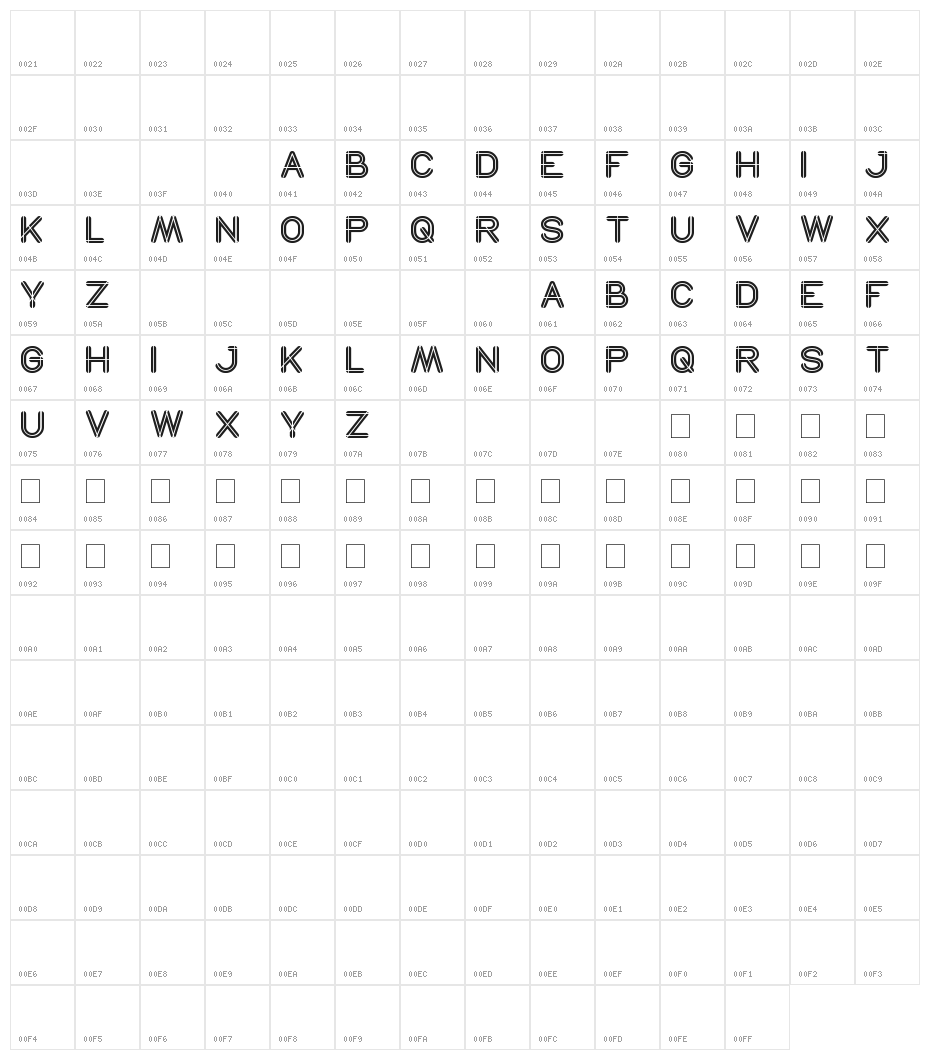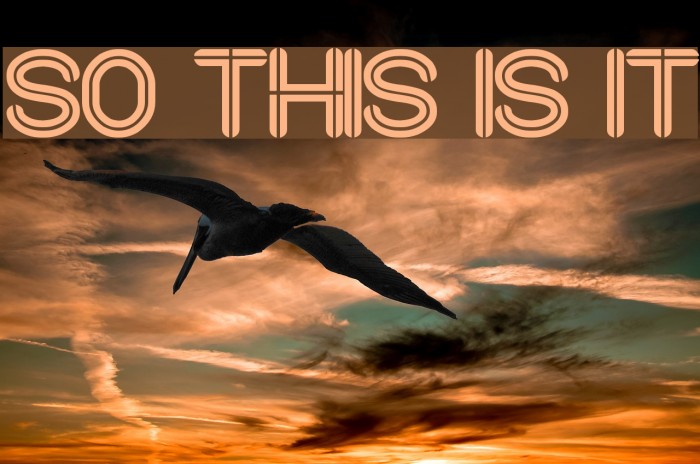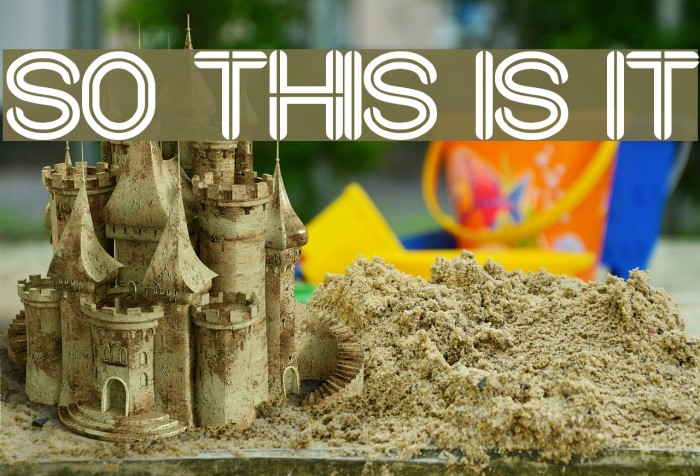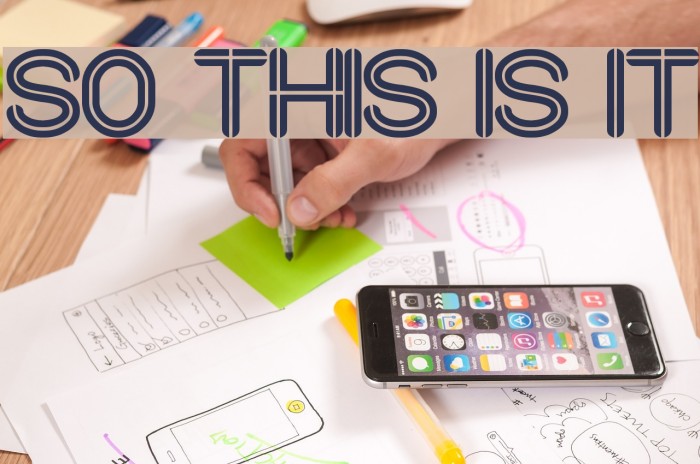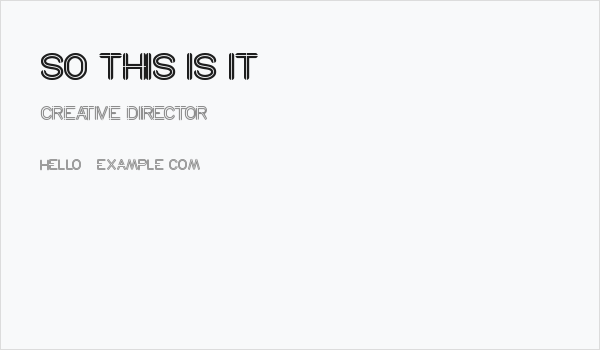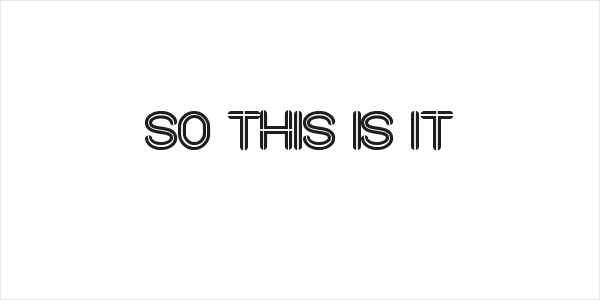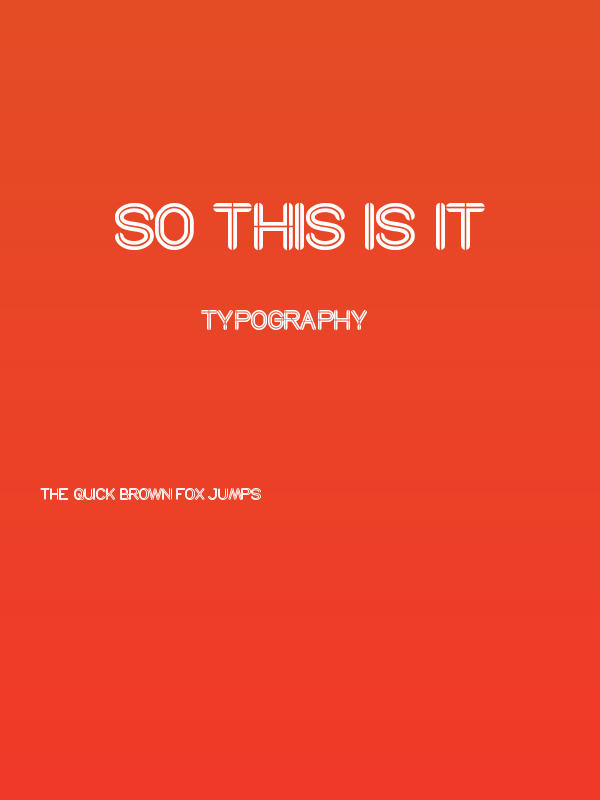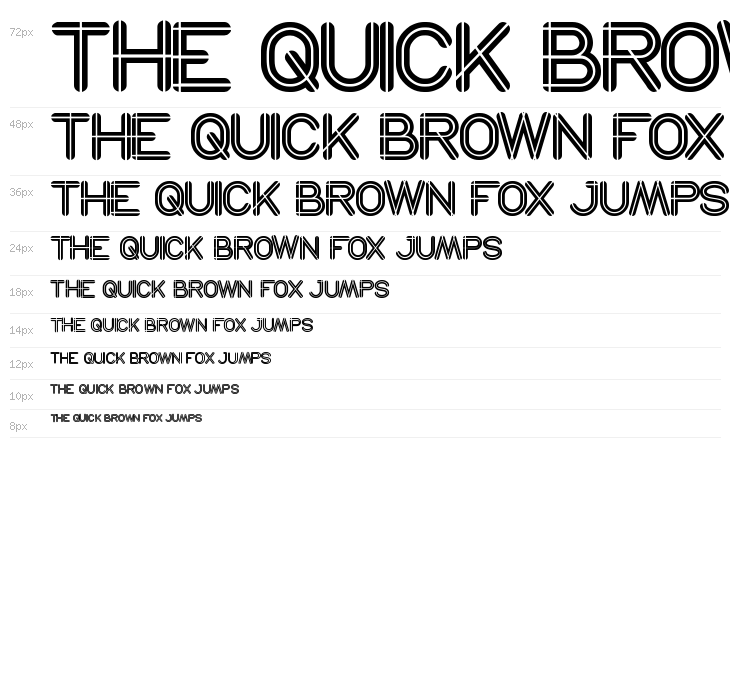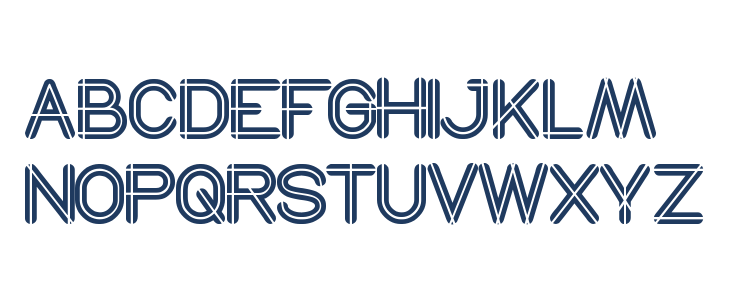
so this is it Font
so this is it Description
This font features a unique, decorative style with a double-line structure that creates a sense of depth and dimension. The uppercase letters are bold and striking, with a geometric design that emphasizes symmetry and balance. Each character is crafted with precision, showcasing a modern aesthetic that is both eye-catching and sophisticated. The font's intricate detailing makes it ideal for projects that require a standout visual element. Its distinct appearance is perfect for creating memorable headlines, logos, and branding materials. The font's design is versatile enough to be used in both digital and print media, offering a contemporary twist on classic typography.